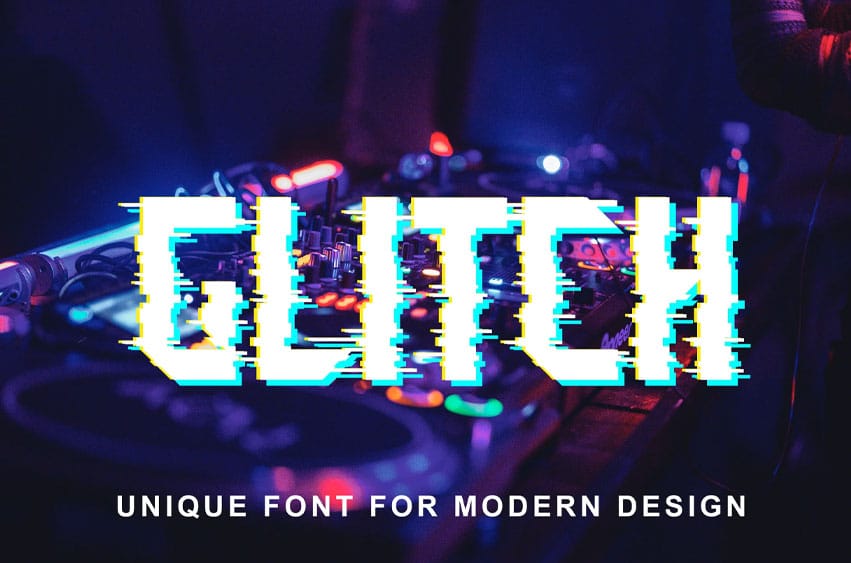
Block Glitch Font is elegant and futuristic font.
It can easily be matched to an incredibly large set of projects like logo, package, advertisement, magazine, so add it to your creative ideas and notice how it makes them stand out!